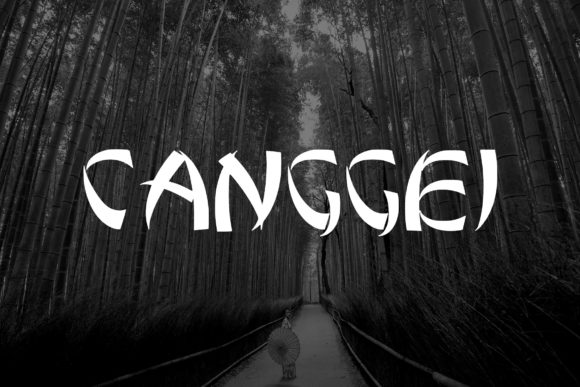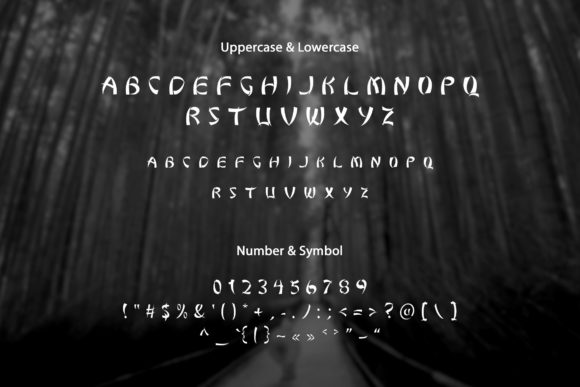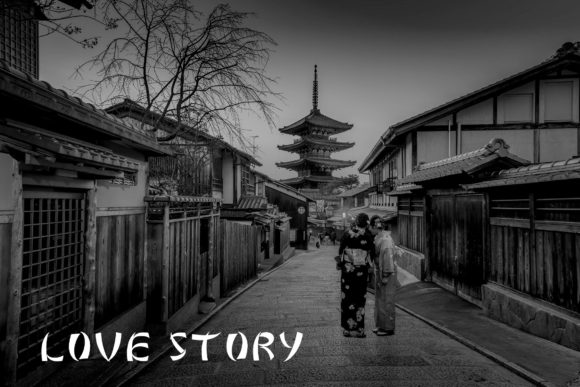
The Canggei Font: A Modern Design Game-Changer
An Honest Review of Canggei
- ✨ Modern and Chic: Canggei’s sleek design makes it perfect for projects that need a contemporary feel.
- ✅ Versatile: Whether you’re working on a logo, poster, or social media graphic, Canggei adapts effortlessly.
- 💡 Incredible Asset: This font has the potential to elevate any creation, making it a valuable addition to your font library.
While Canggei is an amazing font, there are a few things to keep in mind:
- 🤔 Legibility at Small Sizes: Like many display fonts, Canggei can be a bit tricky to read at very small sizes. It’s best used for headlines or titles.
The Backstory of Canggei
Canggei was designed with the modern creative in mind. Its creator aimed to craft a font that was both stylish and versatile, capable of elevating any project. While the exact inspiration might be a mystery, it’s clear that Canggei was made to make a statement.
Q: What makes Canggei a good choice for branding projects?
A: Canggei’s modern and chic look makes it perfect for creating a strong brand identity. Its versatility ensures it can be used across various platforms and materials.
Q: Is Canggei suitable for body text?
A: While Canggei is stunning as a display font, it’s not ideal for long body text due to its design and potential legibility issues at smaller sizes.